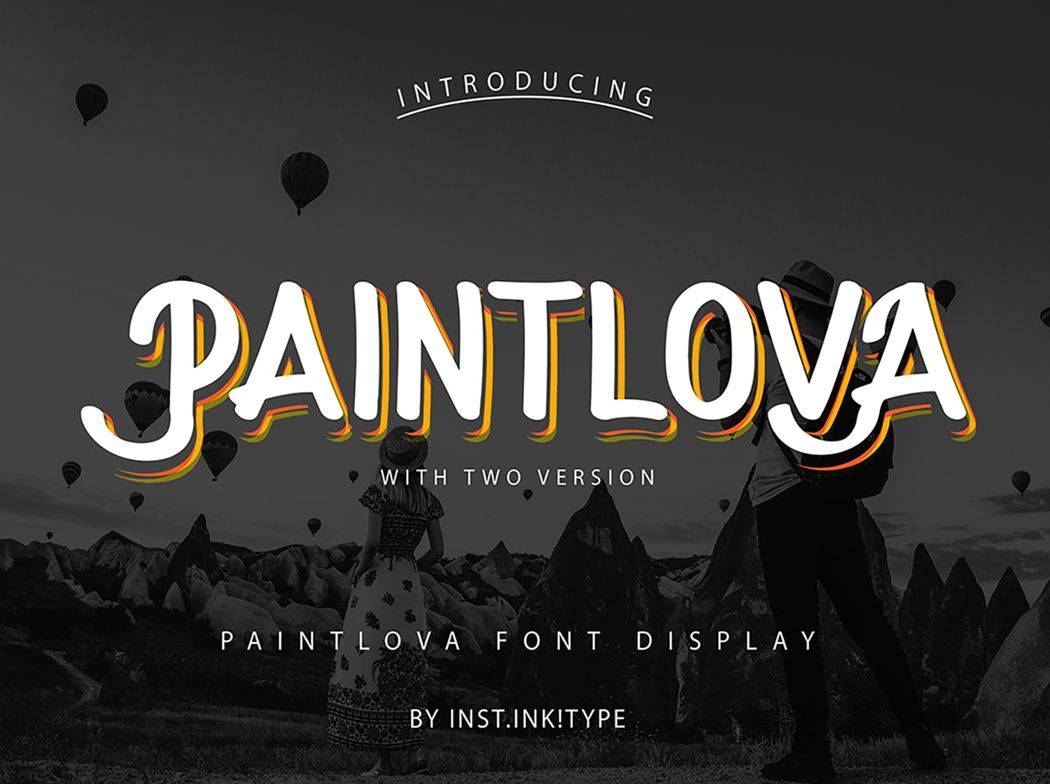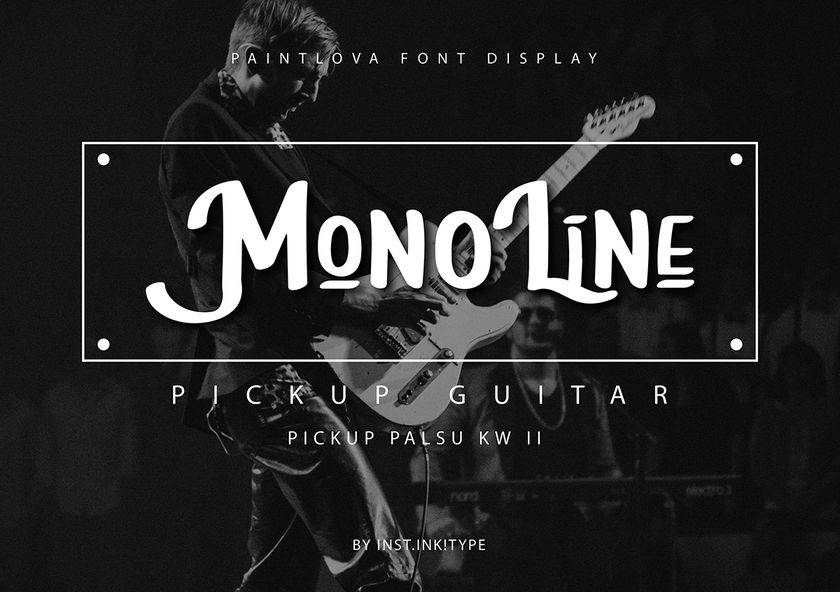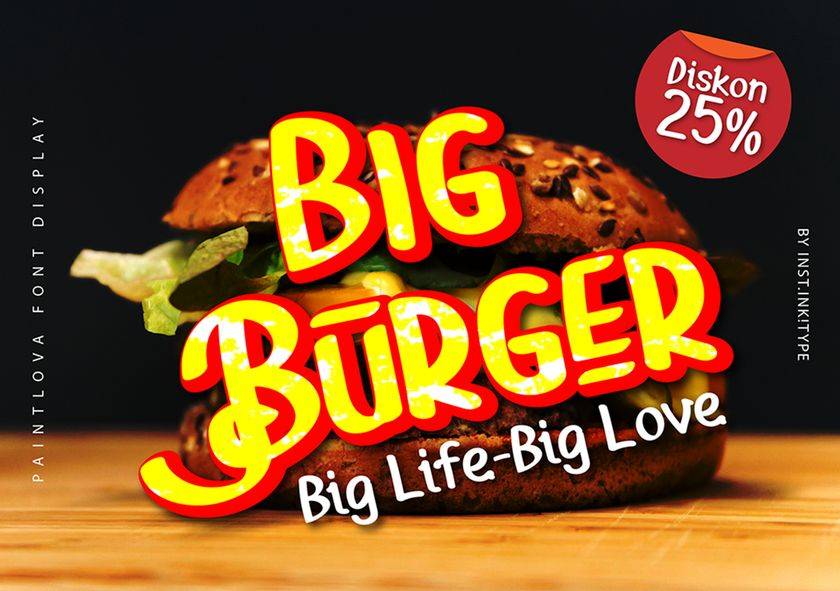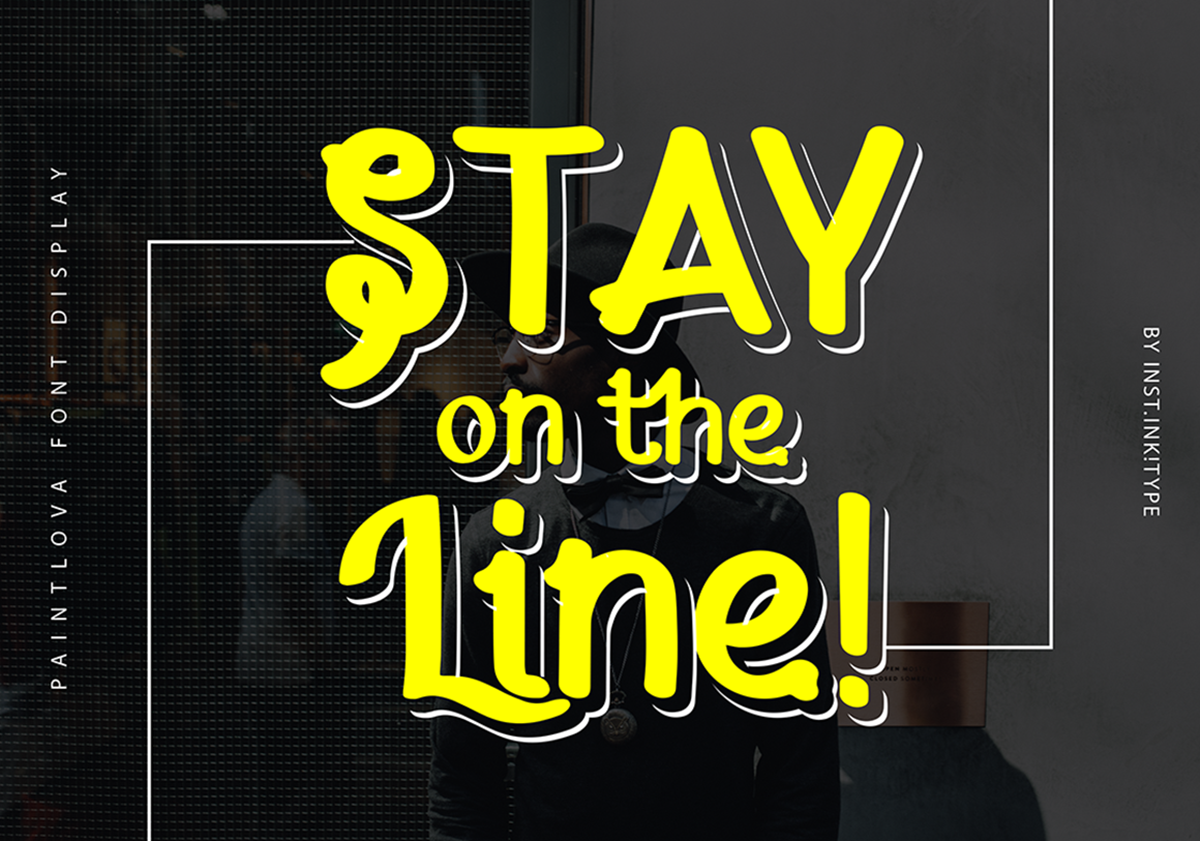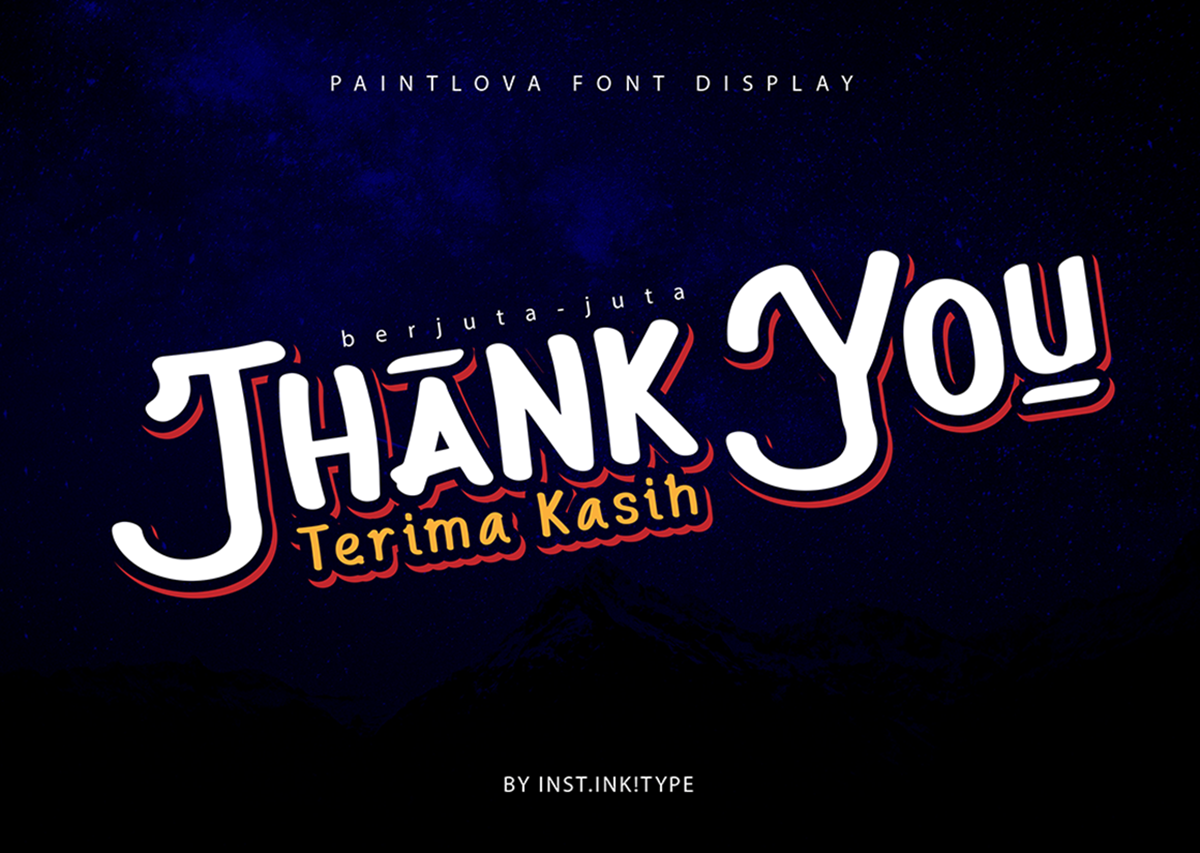
PaintLova is a playful and casual sans serif font with a hand-drawn, brush-like feel that adds a personal and friendly touch. Its rounded, slightly irregular letterforms and medium weight create an approachable and informal style, perfect for creative projects, children's designs, and branding that seeks warmth and whimsy. This font works well for headlines, logos, and packaging where a lively, artistic vibe is desired.
PaintLova Font
About PaintLova Font
| Font family | PaintLova Font |
| Designer | Galih Suistya Aji |
| Trademark | inst.ink!type |